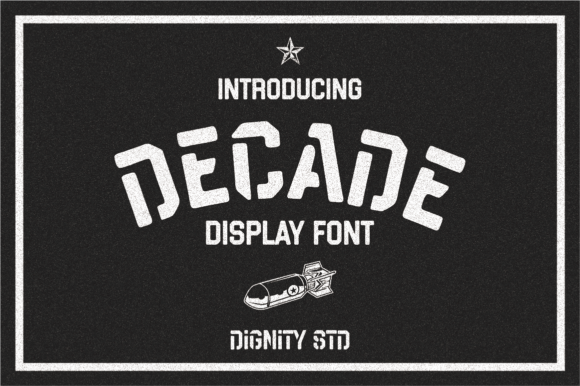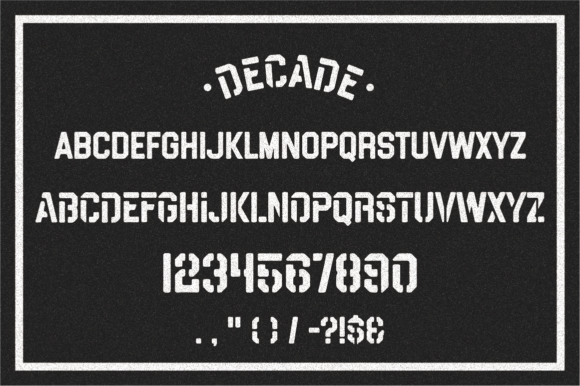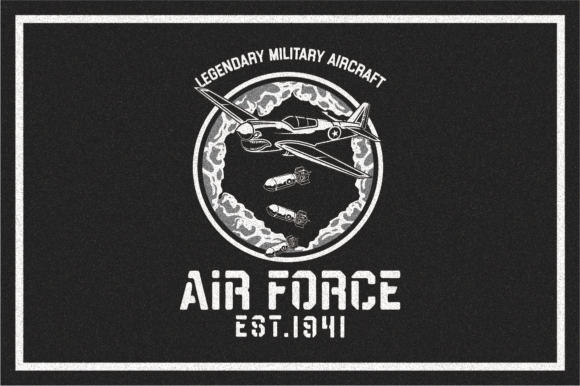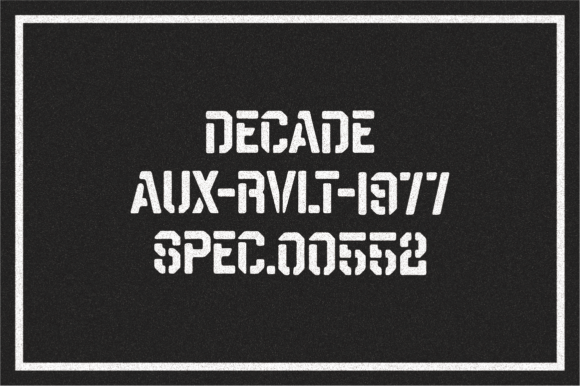
Unleashing the Power of Timeless Typography
Have you ever stumbled upon an old photograph or a vintage advertisement that instantly transports you to a bygone era? The nostalgia and charm of those moments often spark our creativity, inspiring us to create something new and reminiscent of the past. For designers, this feeling can be a constant source of inspiration, driving us to experiment with unique typography that captures the essence of a particular era.
| 📌 Product Name | Decade Font |
| 👤 Author | dignity.std |
Enter Decade Font, a bold and imposing display font that adds a touch of vintage glamour to any design project. Whether you’re creating posters, labels, or logos, this cool and stylish font is sure to bring your designs to life. As a designer, you’ll appreciate the versatility and character that Decade Font brings to the table, making it a valuable addition to your typography arsenal.
Decade Font Key Features
- Unique characteristics: Decade Font is a sans-serif font that pays homage to the typography of the 1990s and early 2000s, with a modern twist. It features a bold, geometric look and a wide range of weights.
- Font sizes: Decade Font comes in a range of sizes, from 100 to 800 points, making it suitable for a variety of design applications.
- Resolution: Decade Font is designed to be resolution-independent, ensuring that it looks crisp and clear at any resolution, from low to high DPI.
- Weight options: Decade Font includes a range of weights, from Light to Extra Bold, giving designers flexibility in their typography choices.
- Language support: Decade Font supports a wide range of languages, including Latin, Cyrillic, and Greek scripts, making it suitable for global design applications.
Decade Font Review
As a designer, I was excited to dive into the Decade Font and see what it had to offer. The first thing that caught my attention was its ✨ bold and modern aesthetic ✨. The font is designed to evoke the feeling of nostalgia, with its distressed and worn look. I think it’s perfect for creating a unique and eye-catching visual identity for any project.
- ✨ Unique and modern aesthetic ✨
- Great for creating a nostalgic feel
- Works well for headings and titles
- Can be used for a variety of design projects
- ⚠️ Limited font weight options ⚠️
- Not suitable for large blocks of text
- May not be suitable for formal or professional designs
Overall, I think the Decade Font is a great addition to any designer’s toolkit. While it may not be perfect for every project, it’s a unique and versatile font that can add a lot of character to a design. With a little creativity, it’s easy to see the Decade Font becoming a staple in your design workflow.
The Decade Font is a great choice for creating nostalgic and retro-themed designs. Some common use cases include:
- Retro-style posters and flyers
- Nostalgic social media graphics
- Vintage-inspired wedding invitations
Remember to experiment with different font sizes, styles, and colors to get the most out of the Decade Font.